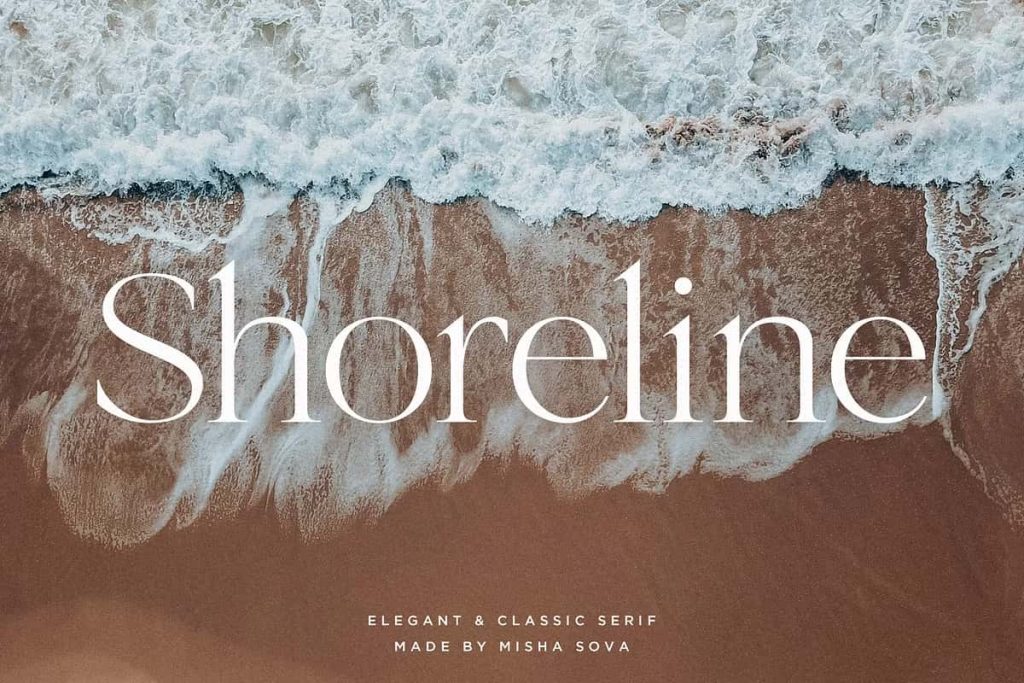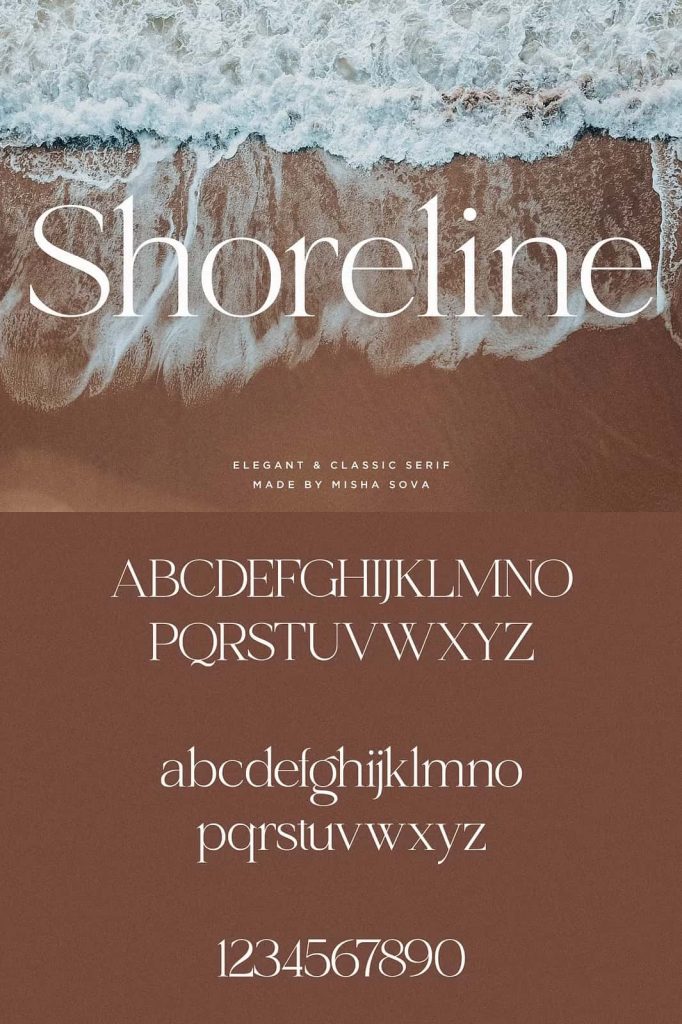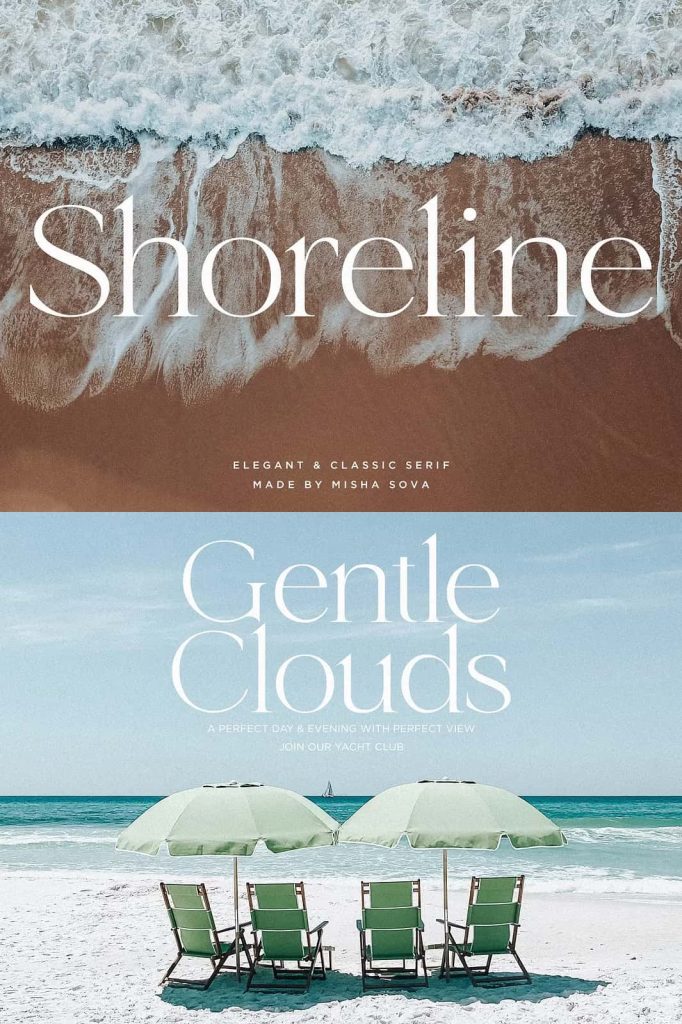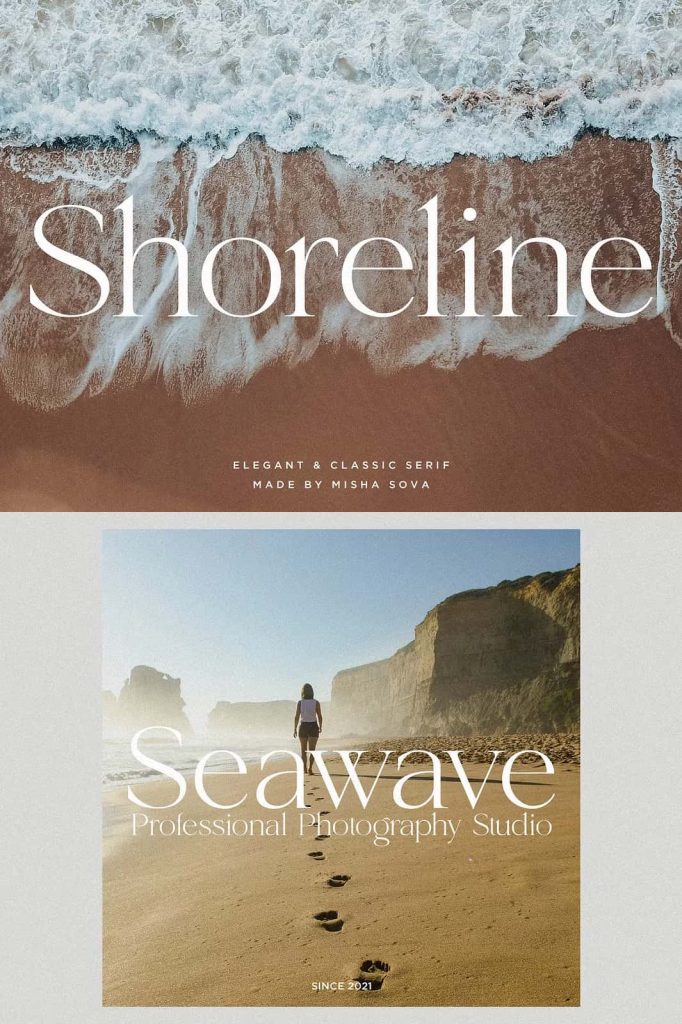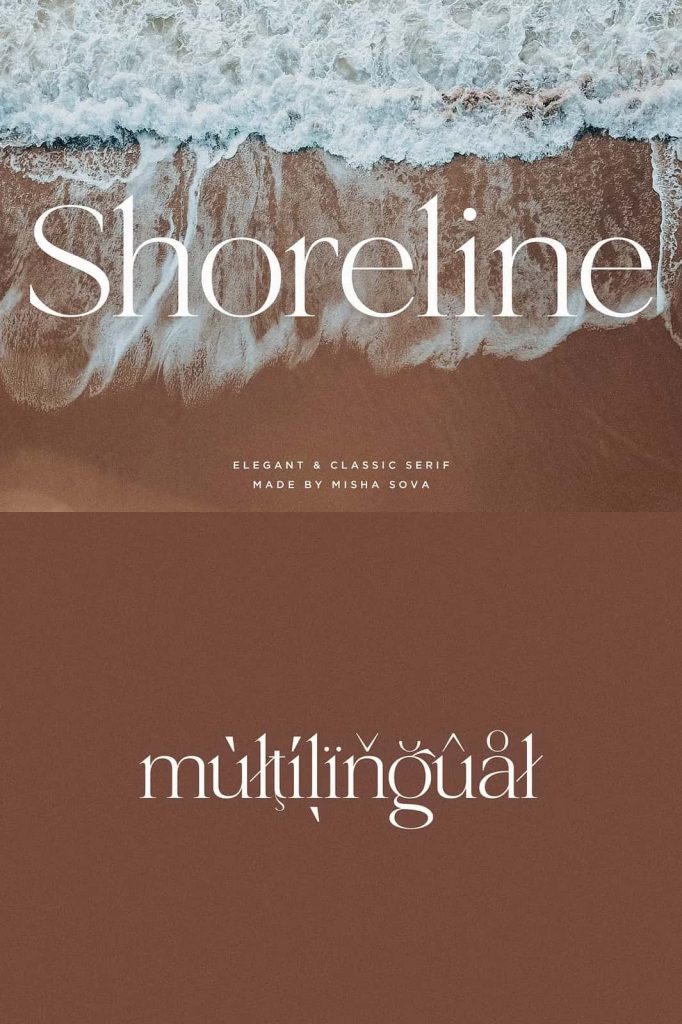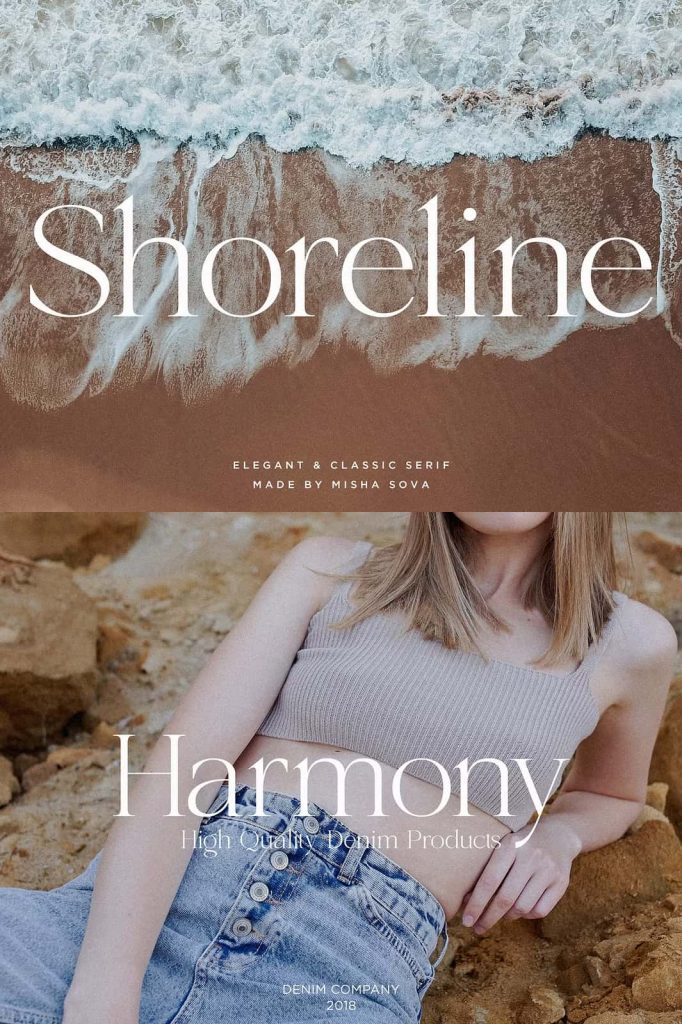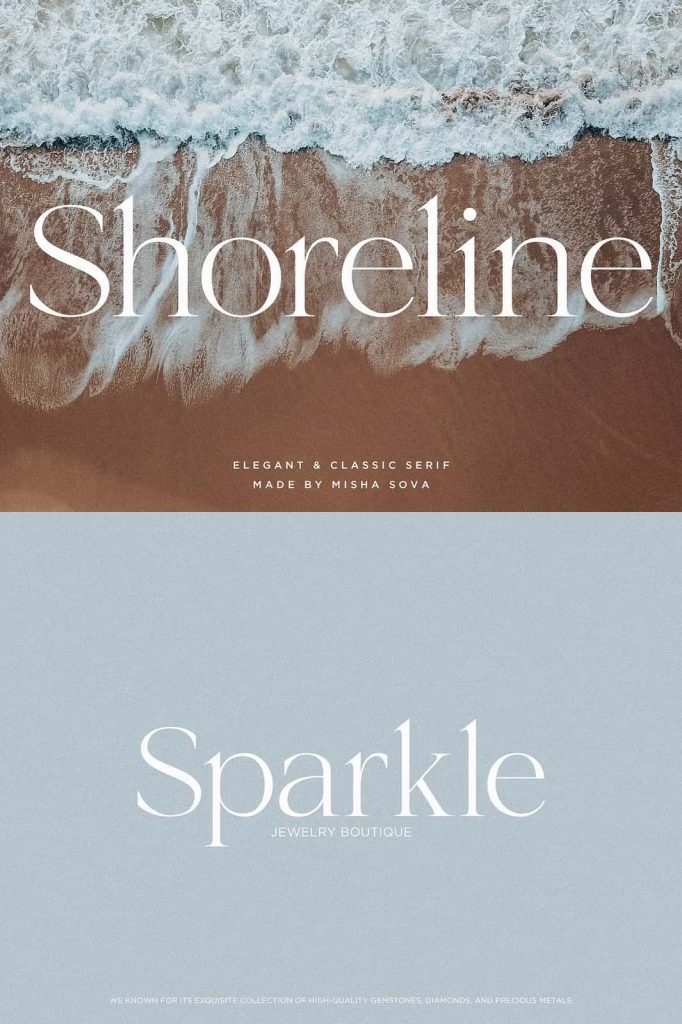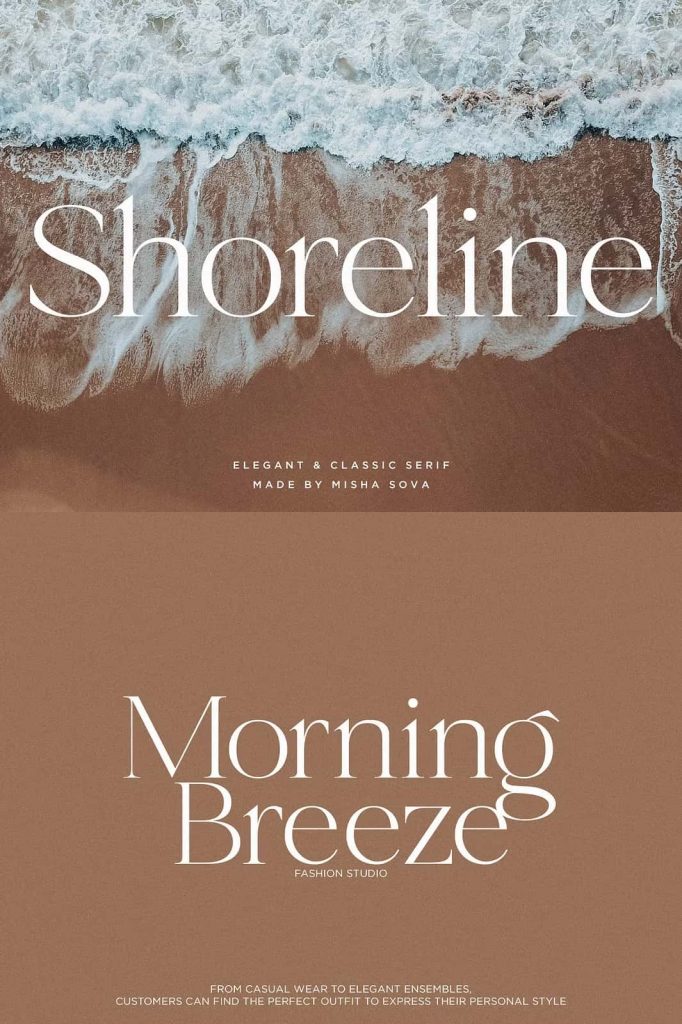
Shoreline is a beautifully crafted serif font that combines elegance with a classic design. Its clean lines and timeless appeal make it a versatile choice for a wide range of projects.